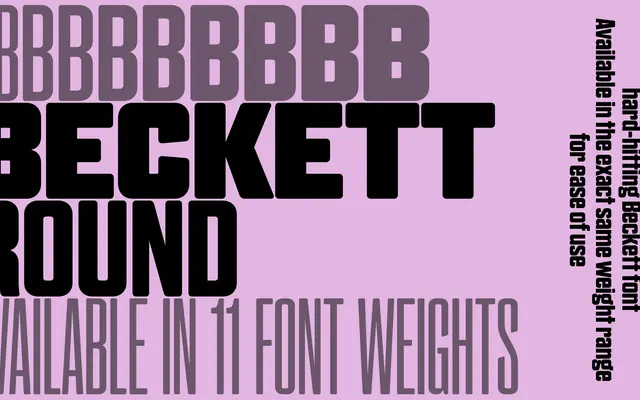
Beckett Round specimen from A2-Type
A rounded variant of A2-Type's wood-type-inspired Beckett, sharing identical proportions so the two can be swapped without affecting text flow.
Beckett Round takes the machine-cut wood type source material of the original Beckett and applies rounded corners across the entire letterform set, producing a softer character while retaining the same weight system and proportions. Eleven weights run from Extralight to Heavy, with no italics in the family. Because metrics are matched to the parent Beckett, the two faces can be used interchangeably within a layout without reflowing text.
Derived from a machine-cut wood type revival, Beckett Round is a display-weight sans with softened, rounded terminals throughout, placing it firmly in the rounded sans subcategory of display type.